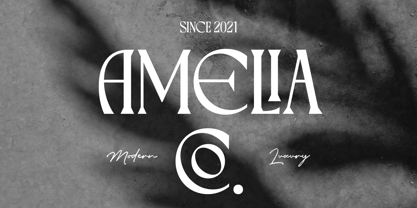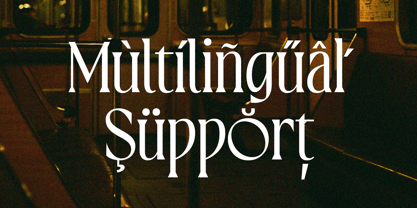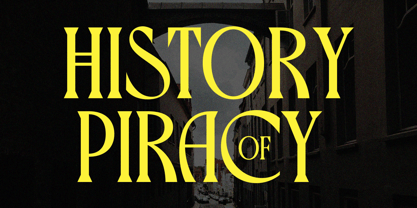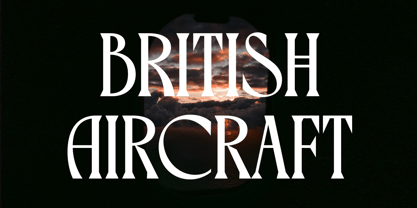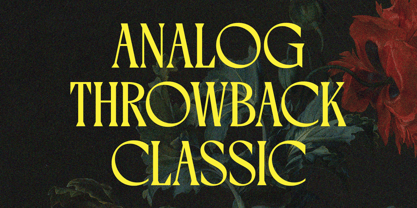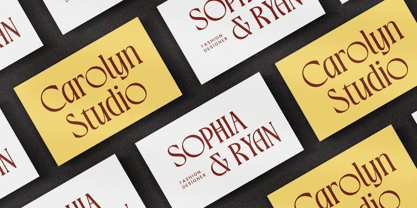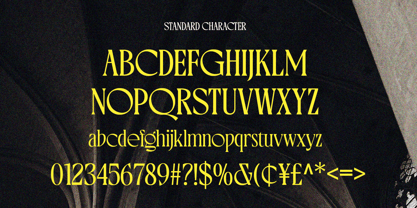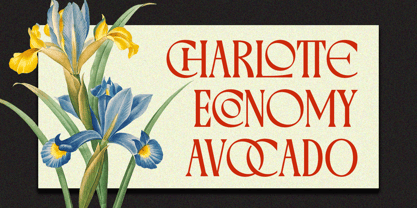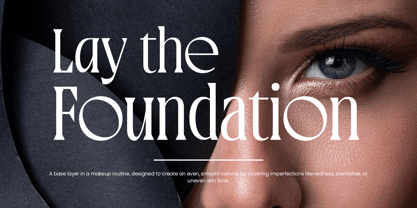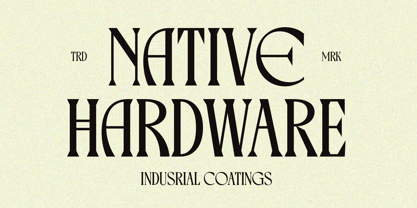
Varoste
Varoste is a modern vintage condensed display typeface that exudes elegance and sophistication. Its geometric letterforms are thoughtfully crafted to bring a timeless charm to your designs. Featuring distinctive circular shapes in letters like O, Q, C, and G with a subtle slanted axis, Varoste seamlessly blends classic flair with unique character.
The lowercase letters showcase an old-school serif style with beautifully highlighted joints and high contrast, ensuring every design stands out with bold impact.
Perfect for titles, labels, branding, or logos, Varoste comes packed with special characters that deliver a touch of classic nostalgia and powerful visual appeal. Make your projects unforgettable with this one-of-a-kind typeface!